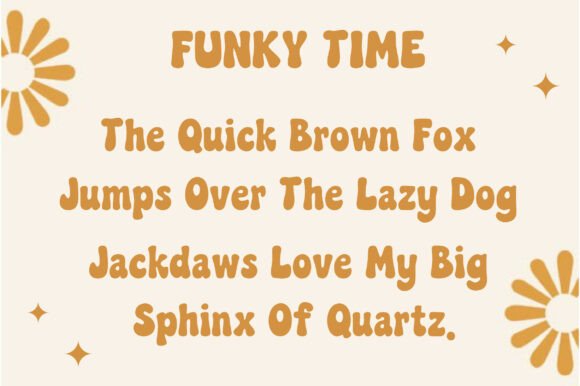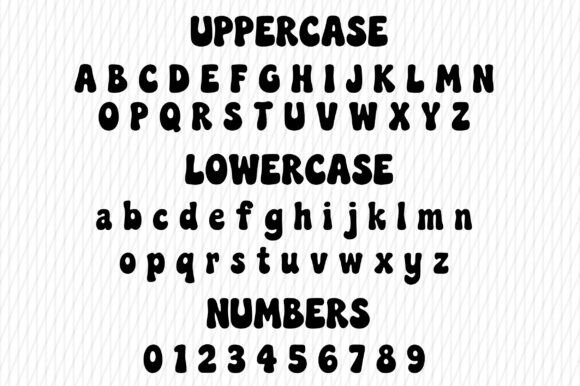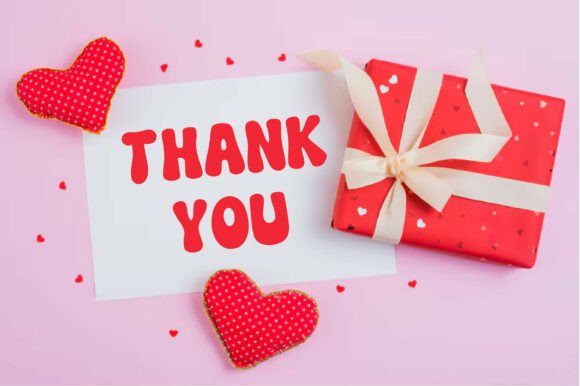
Bring Back the Groovy Vibes with Funky Time Font
Are you tired of using the same old fonts for your designs? Do you want to add a touch of playfulness and charm to your posters, T-shirts, logos, and social media graphics? Look no further than the Funky Time Font! This bold, bubbly, and playful retro font is perfect for designers and crafters who want to bring back the groovy vibes of the past.
What is Funky Time Font?
Funky Time Font is a unique and eye-catching font that is inspired by the fun and carefree designs of the 1960s and 1970s. With its bold lines, bubbly curves, and playful flair, this font is sure to add a touch of nostalgia and whimsy to any design. Whether you’re creating a poster, T-shirt, logo, or social media graphic, Funky Time Font is the perfect choice for anyone who wants to make a statement.
Features of Funky Time Font
So, what makes Funky Time Font so special? Here are just a few of its key features:
• Bold and bubbly design: Funky Time Font is a bold and eye-catching font that is sure to grab attention.
• Playful and charming: With its playful curves and whimsical flair, this font is perfect for designs that need a touch of personality.
• Retro vibe: Funky Time Font is inspired by the fun and carefree designs of the 1960s and 1970s, making it perfect for anyone who loves retro style.
• Versatile: This font is perfect for a wide range of designs, from posters and T-shirts to logos and social media graphics.
Uses for Funky Time Font
So, what can you use Funky Time Font for? The possibilities are endless! Here are just a few ideas to get you started:
• Posters: Create eye-catching posters for events, concerts, or promotions with Funky Time Font.
• T-shirts: Design fun and playful T-shirts with this bold and bubbly font.
• Logos: Use Funky Time Font to create a unique and memorable logo for your business or brand.
• Social media graphics: Add a touch of personality to your social media graphics with this playful font.
• Crafting projects: Use Funky Time Font to add a personal touch to your crafting projects, such as scrapbooking, card making, or DIY signs.
Why Choose Funky Time Font?
So, why should you choose Funky Time Font for your next design project? Here are just a few reasons:
• Unique and eye-catching: This font is sure to grab attention and make your design stand out.
• High-quality design: This font is designed with high-quality graphics, ensuring that it looks great in any design.
If you’re looking for a fun and playful font that can add a touch of personality to your designs, look no further than Funky Time Font. With its bold lines, bubbly curves, and playful flair, this retro font is perfect for designers and crafters who want to bring back the groovy vibes of the past. Whether you’re creating posters, T-shirts, logos, or social media graphics, Funky Time Font is the perfect choice for anyone who wants to make a statement.